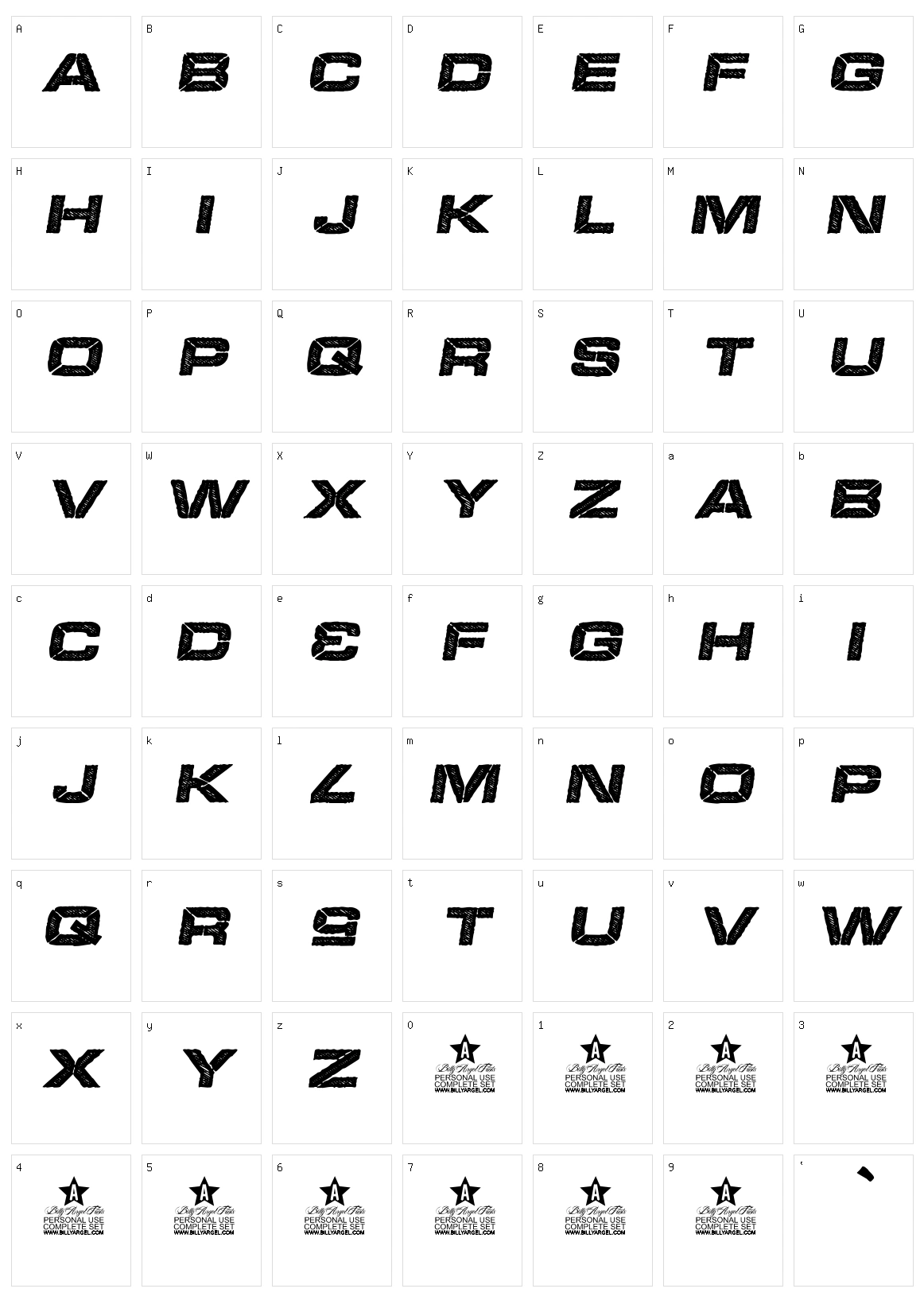
The free font Booker is carefully designed by Billy Argel Fonts ®, showcasing a thoughtful balance of creativity and usability and falls under the Eroded font style. When you download the ZIP file, it contains only 3413.96 KB of font files, making it lightweight and quick to download. Please review the license details below to understand permitted usage and distribution rights. If license information is not available, we recommend using this font for personal projects only or contacting the author directly for commercial usage permissions.